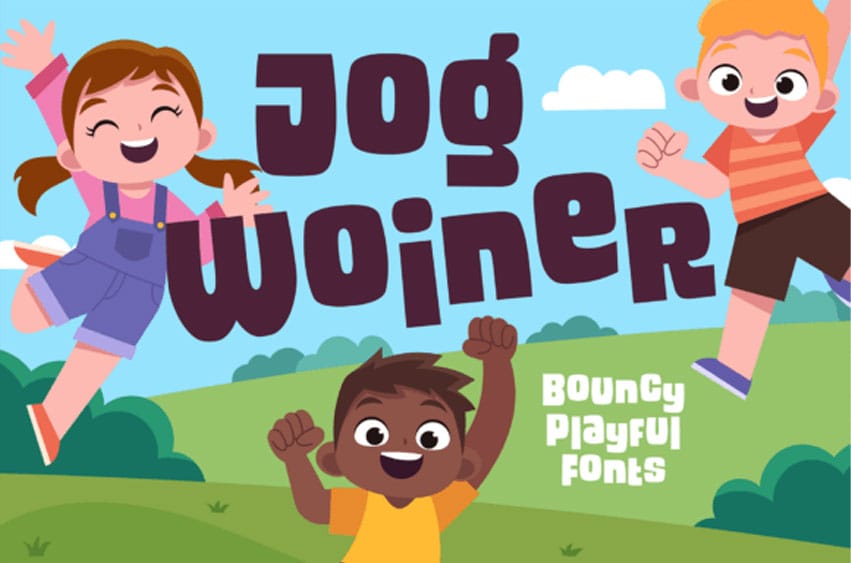
Jog Woiner Font Let your imagination leap, giggle, and bounce with Jog Woiner — a playful kids font crafted to capture the joyful spirit of childhood! With bouncy, cheerful lowercase letters and clean, friendly uppercase forms, this typeface is made to spark smiles and tell stories.
Whether you’re designing a storybook cover, educational material, coloring book, kids’ party invitation, or toy packaging, Jog Woiner delivers the fun, quirky energy that every young audience adores.